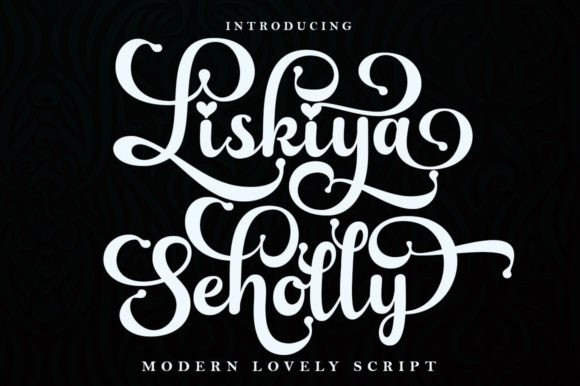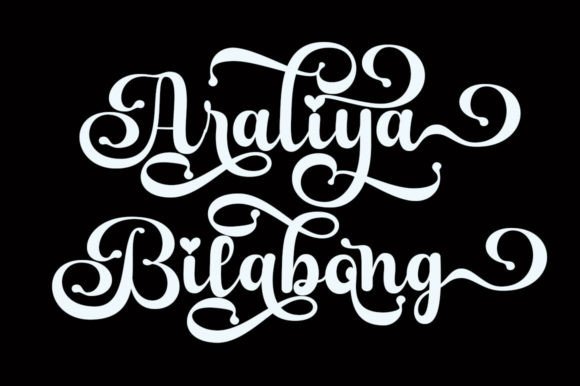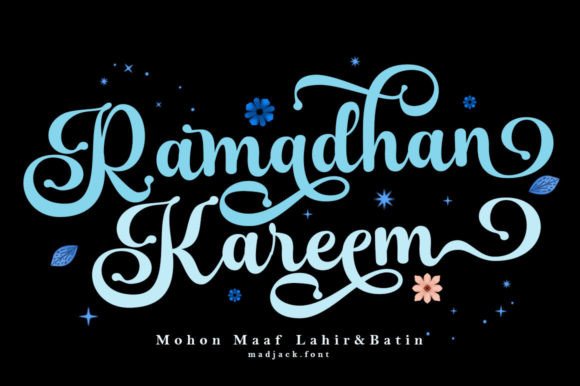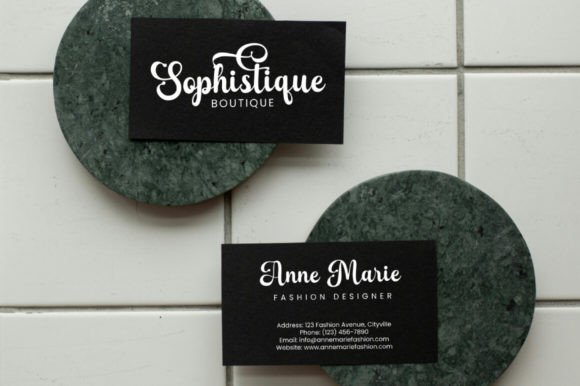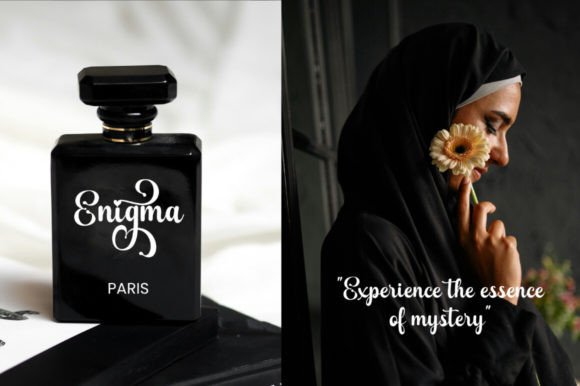
Liskiya Seholly Font
Liskiya Seholly Script is a modern calligraphy design including Regular. This font is casual and beautiful with strokes and can be used for various purposes such as logos, product packaging, wedding invitations, branding, headlines, signage, labels, signatures, book covers, posters, quotes, and many more.